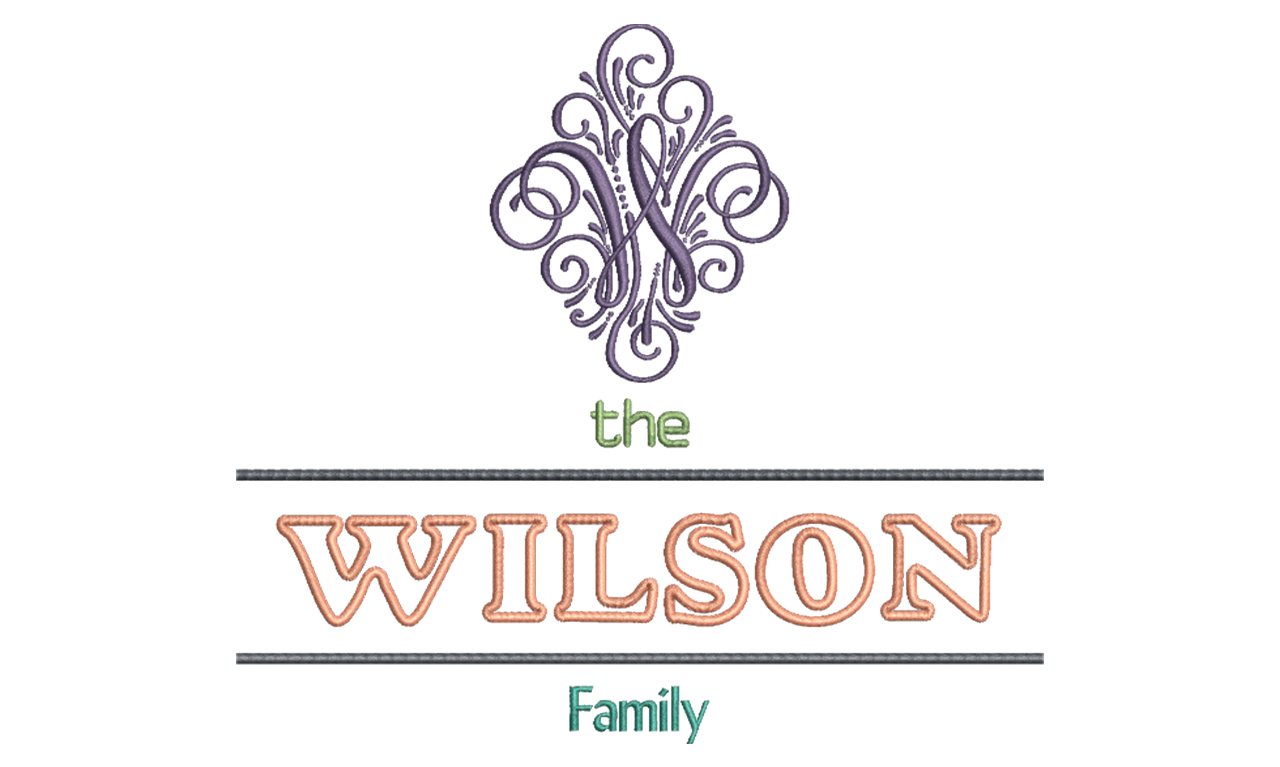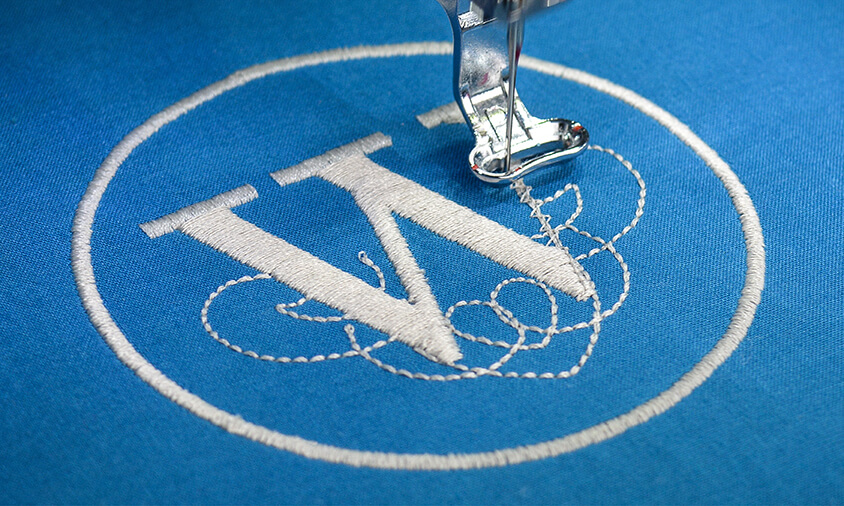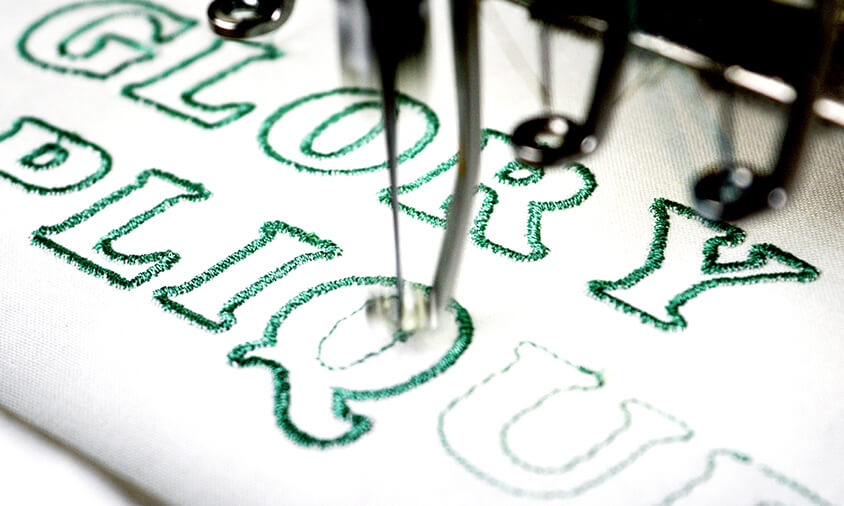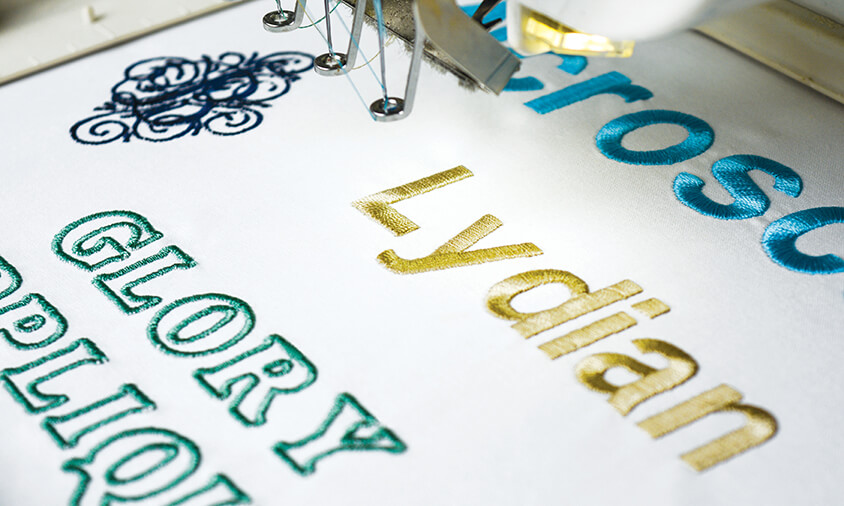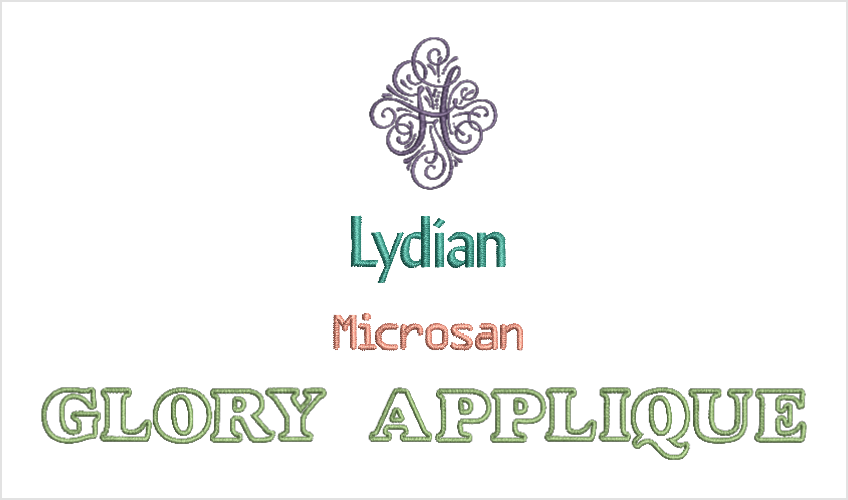
Font Pack #2 - Monograms
They are unique medallion type monograms, crisp and clear monograms and an appliqué style that makes great monograms for the sportsman. An excellent mix of small and larger fonts which work great in both upper and lowercase.
You can never get enough fonts for beautiful and unique monograms!
Fonts in this pack
Henriksson
Designed to be used as single medallion type lettering. Uppercase only. Great for a monogram with fancy scroll effects!
Microscan
Crisp and clear letters for small size fonts and a narrow baseline. Includes upper and lowercase letters and numbers.
Glory Appliqué
Uppercase alphabets and numbers to use as appliqué or not. Medium to tall size letters.
Lydian
Uppercase and lowercase letters. Great to use as small letters such as initials on collars or cuffs. Add a slight slant in the software and almost create a calligraphy look.